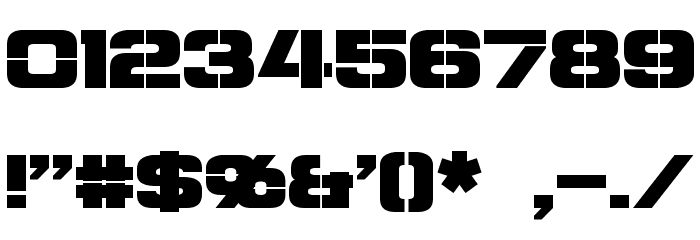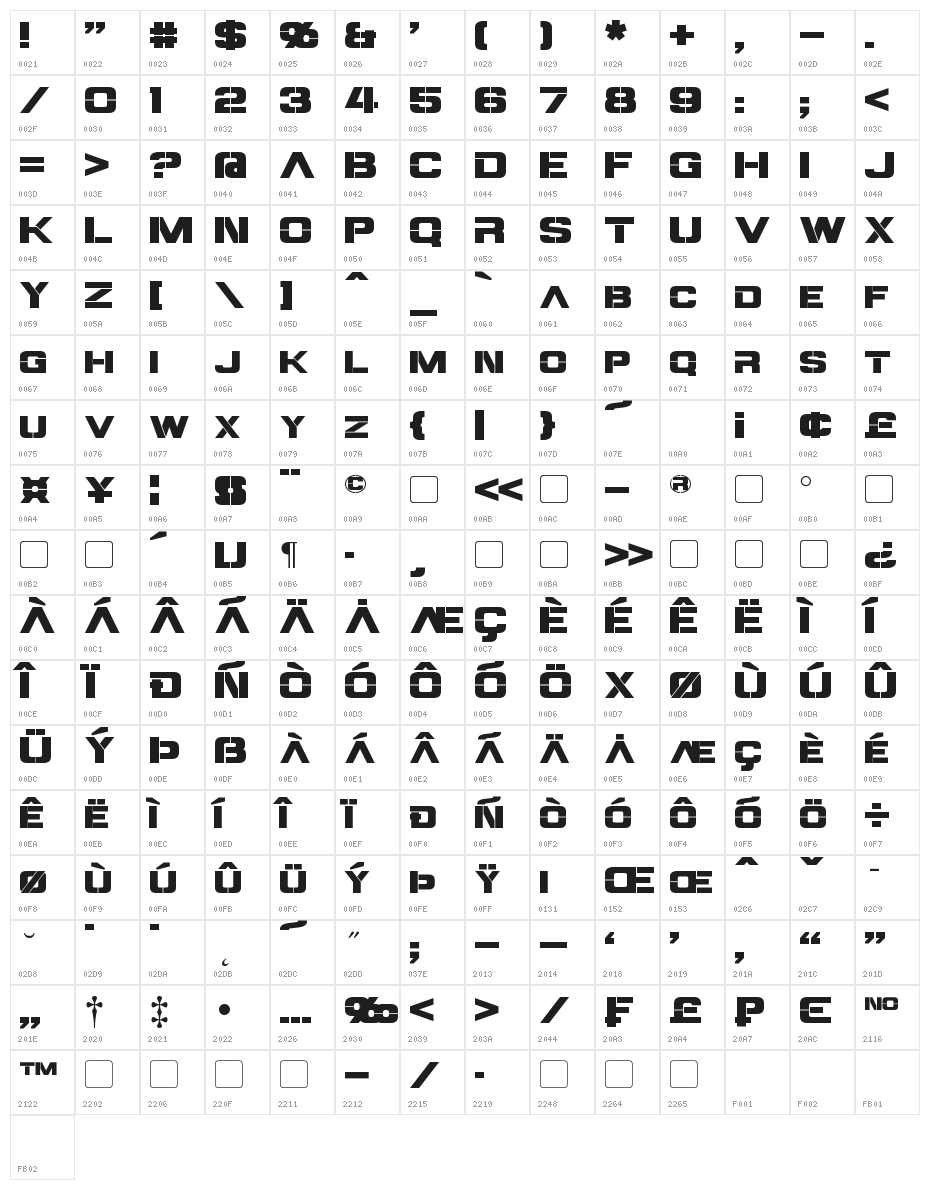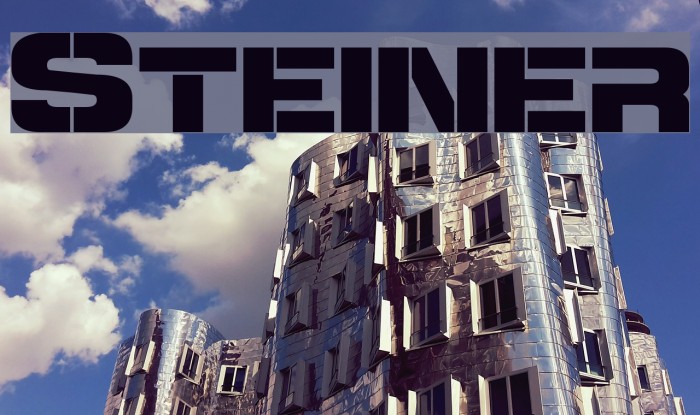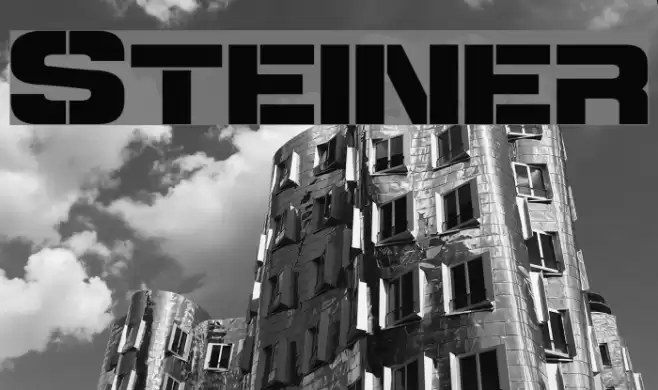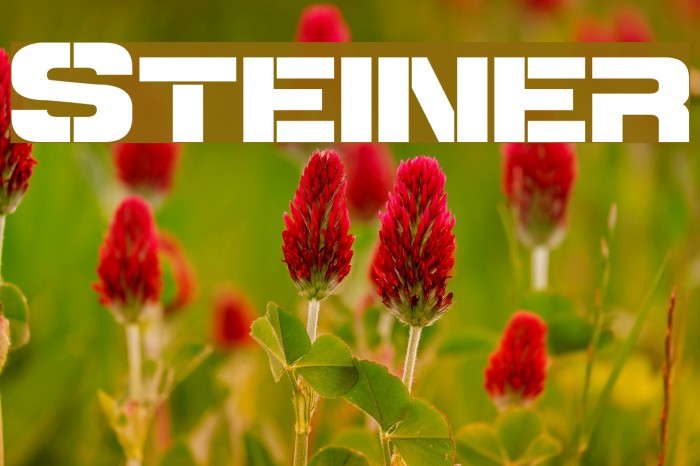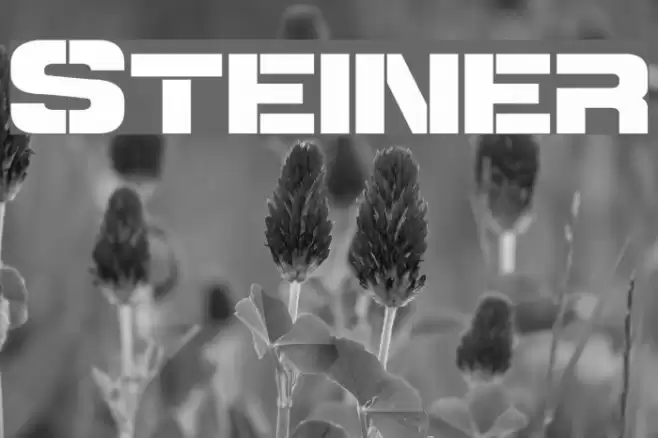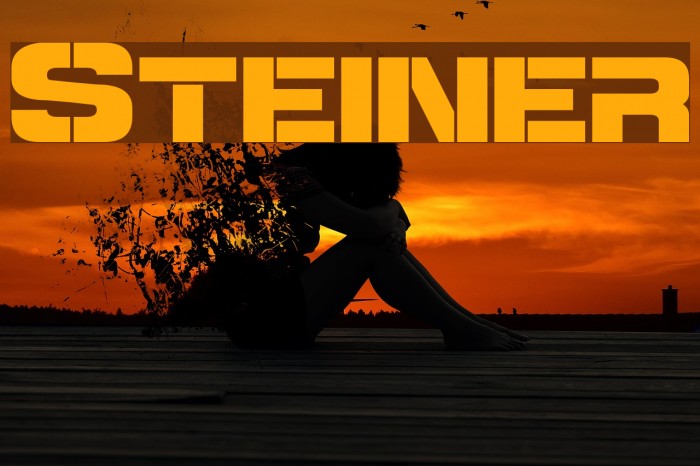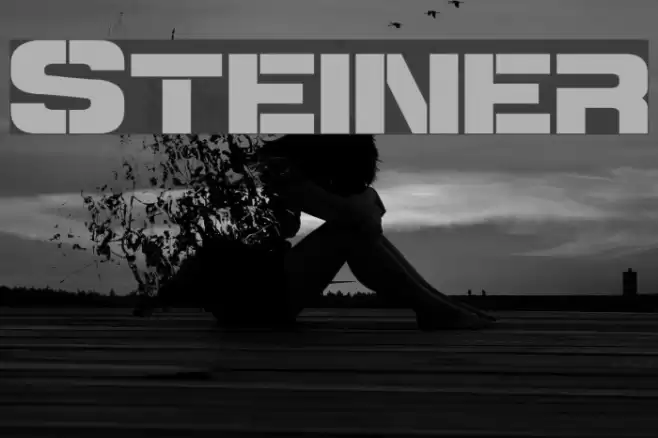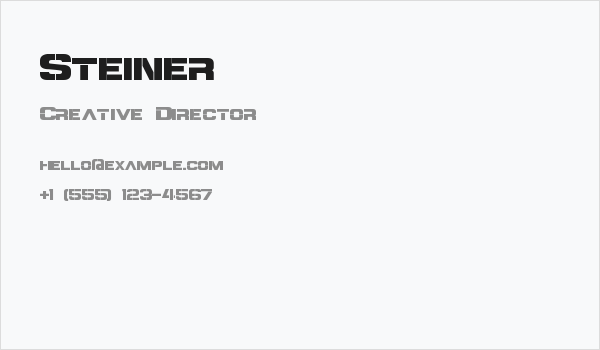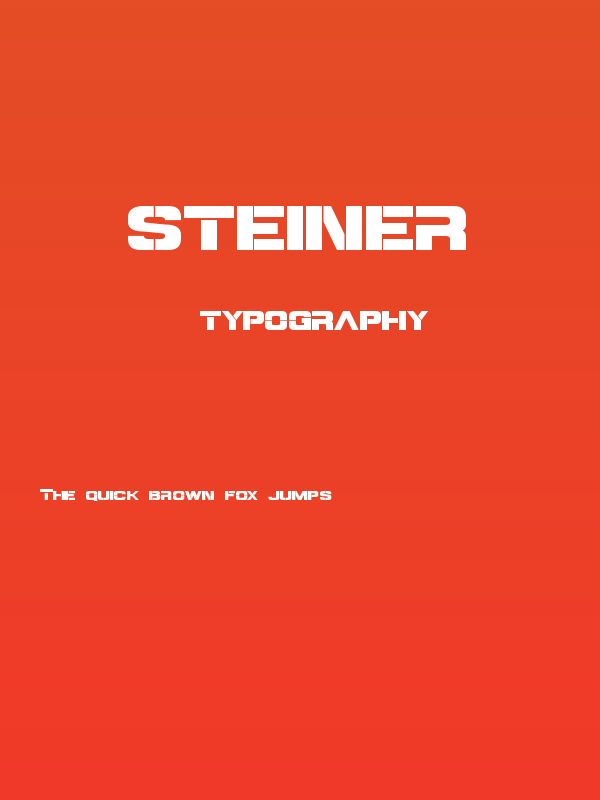
Steiner Font
Steiner Description
This font features a bold and striking design with a geometric and futuristic aesthetic. The characters are constructed with thick, block-like shapes that create a sense of strength and modernity. The uppercase letters are particularly prominent, with sharp angles and a uniform width that enhances their bold appearance. The numbers and special characters maintain this robust style, ensuring consistency across all glyphs. The font's unique style makes it ideal for projects that require a strong visual impact, such as branding, advertising, and poster design.
| Proposed Projects | Ideal for branding, advertising, poster design, and any project needing a strong visual impact. |